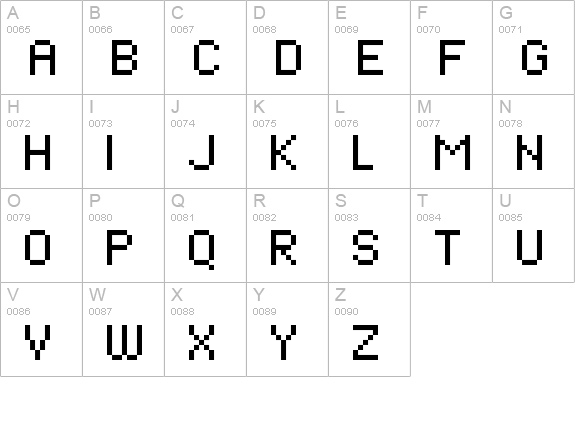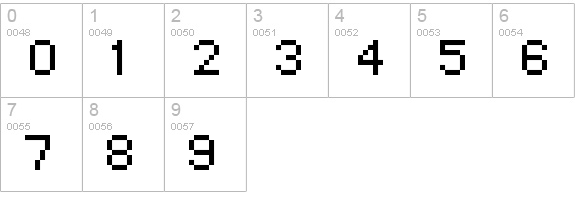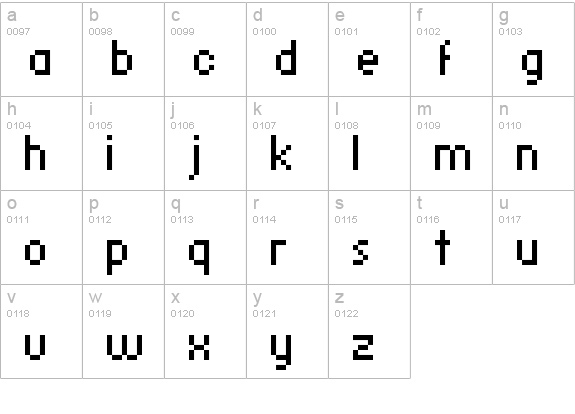
Introducing the captivating and versatile Standard 07_56 font, a true masterpiece for designers and typographers alike. This font effortlessly combines elegance with a modern twist, making it the perfect choice for any project that demands attention and sophistication. With its sleek lines and balanced proportions, Standard 07_56 exudes a timeless appeal that never goes out of style. Its characters are meticulously crafted, ensuring legibility and clarity in any size or format. Whether you're designing a logo, creating a website, or working on a print project, this font will elevate your work to new heights. But what makes Standard 07_56 truly exceptional is that it is available for free download at FontsMarket.com. Yes, you read that right – this remarkable font can be yours without spending a dime. FontsMarket.com is renowned for its vast collection of high-quality fonts, and they are generously offering this gem to designers and enthusiasts around the world. By downloading Standard 07_56, you gain access to a world of creative possibilities. Its extensive character set supports multiple languages, allowing you to communicate your message effectively across borders. Whether you're aiming for a professional look or a playful vibe, this font has the versatility to adapt to your vision effortlessly. The attention to detail in Standard 07_56 is evident in every curve and stroke. From its elegant uppercase letters to its graceful lowercase characters, this font offers a harmonious balance between beauty and functionality. It effortlessly captures attention while maintaining readability, making it a valuable asset for any design project. With its freely available download at FontsMarket.com, Standard 07_56 is within reach for both experienced designers and aspiring creatives. Don't miss out on the opportunity to add this exceptional font to your collection and enhance your designs with its timeless appeal. Download Standard 07_56 today and unleash your creativity like never before.